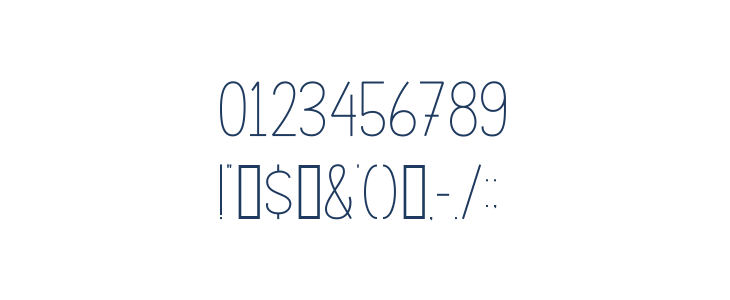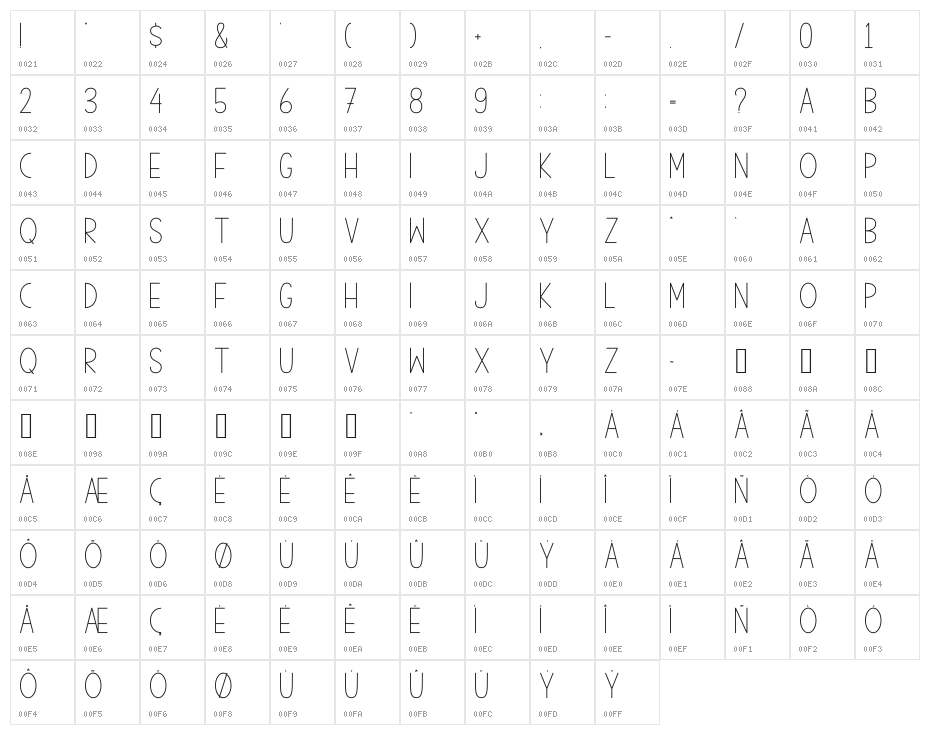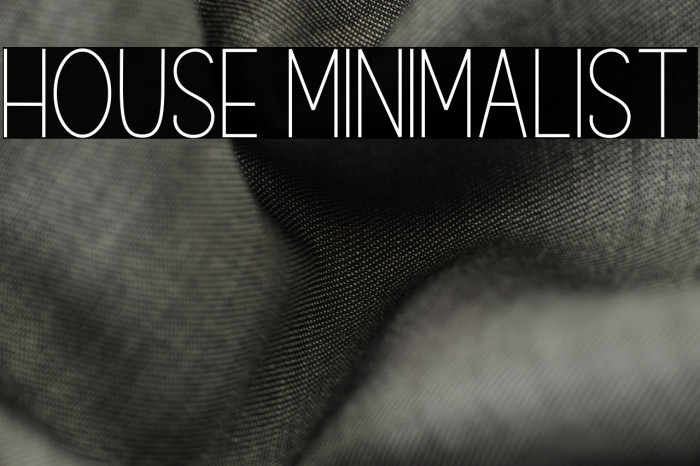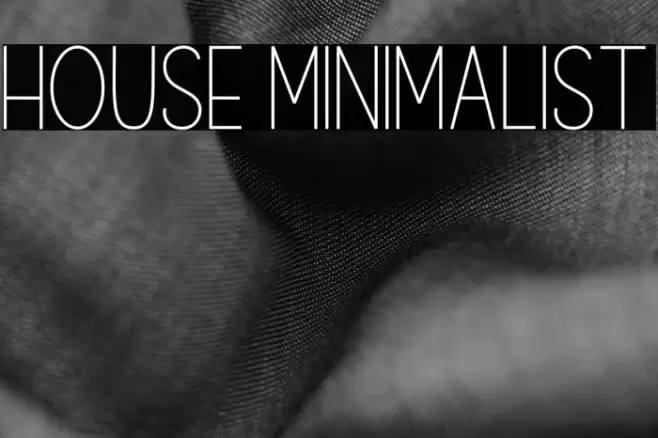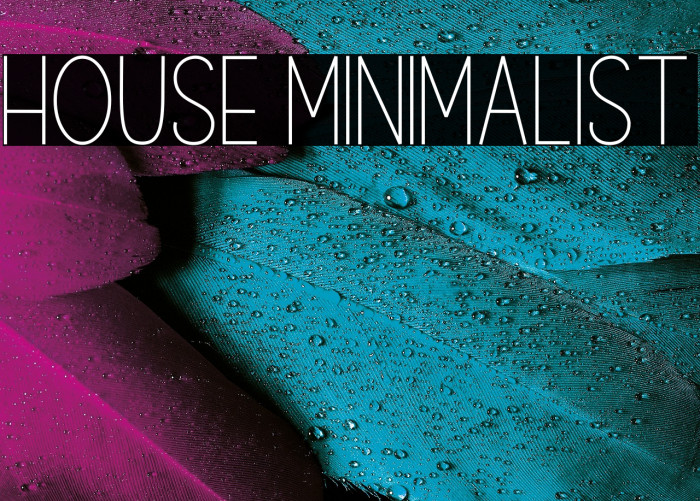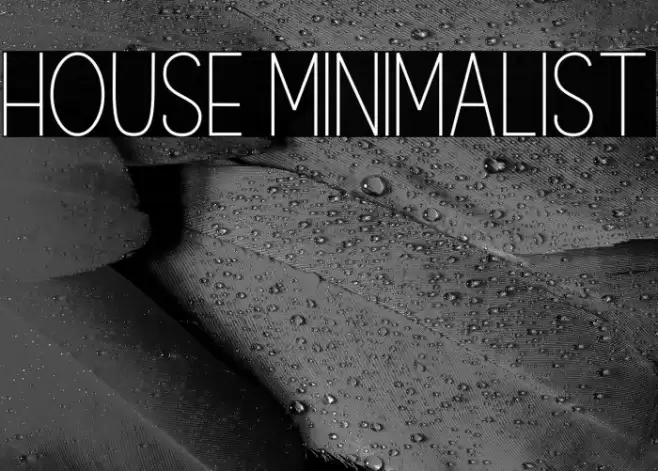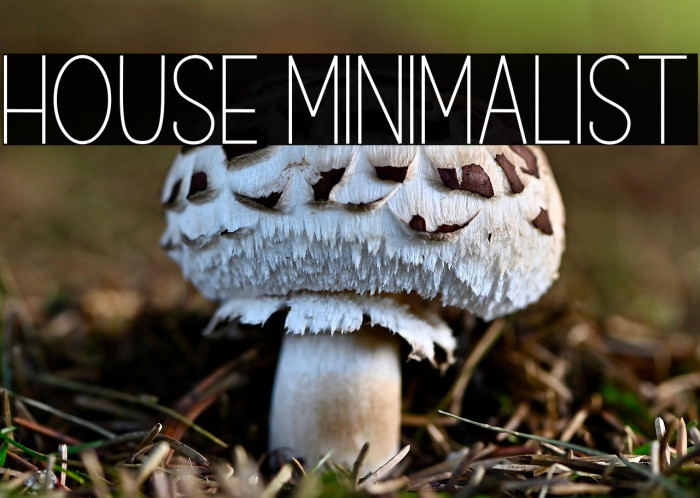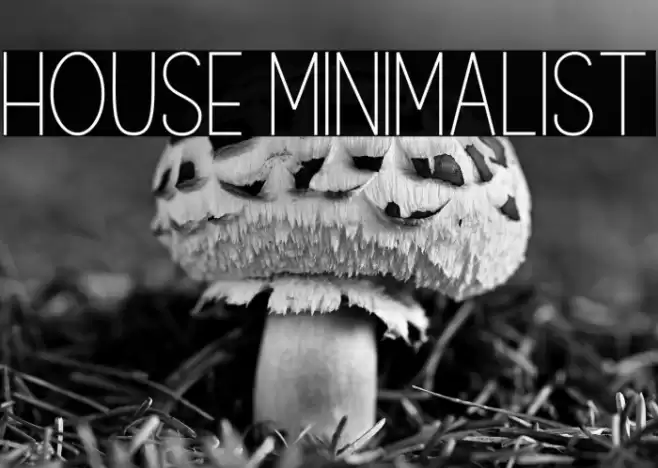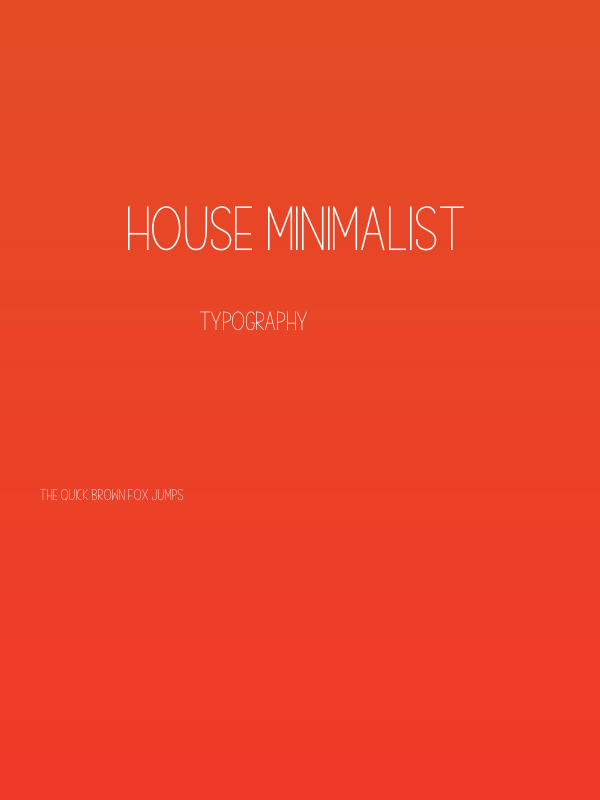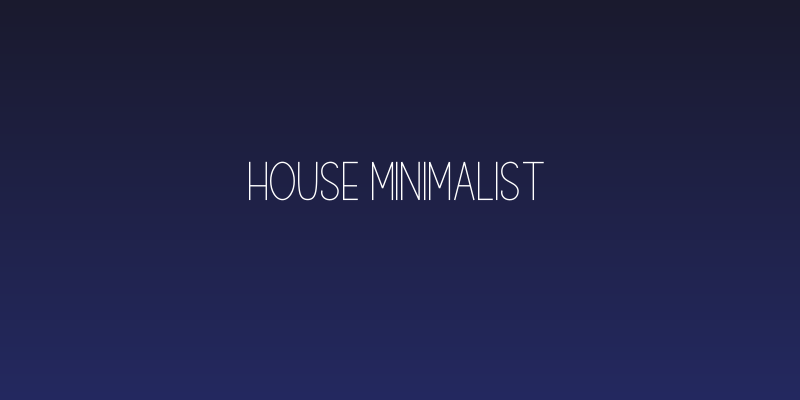
House Minimalist Font
House Minimalist Description
This font features a clean and minimalist design, characterized by thin, uniform strokes that convey a sense of modernity and simplicity. The characters are evenly spaced, providing a balanced and airy appearance. Its geometric structure is evident in the consistent height and width of the letters, creating a harmonious and uncluttered look. The font's straightforward design makes it versatile for various applications, offering clarity and readability without unnecessary embellishments. Its sleek and contemporary style is suitable for projects that require a modern and professional aesthetic.
Use CaseHeadlines, Body text, Logos
Proposed ProjectsIdeal for branding, web design, corporate materials, and minimalist posters.